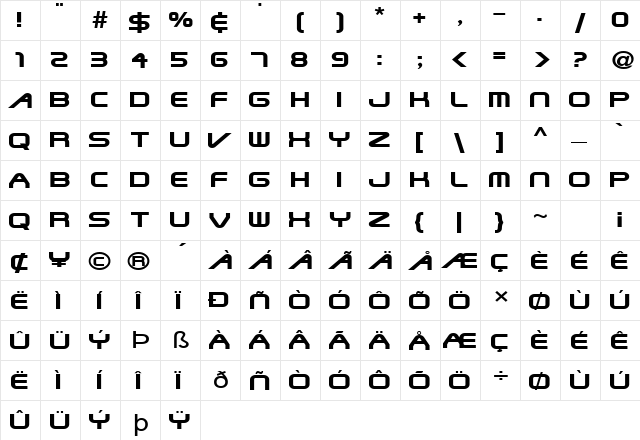
ShuttleExtended Normal
Design Context for ShuttleExtended Typeface
ShuttleExtended takes a measured approach to typography — its balanced proportions and neutral character make it a reliable workhorse for both digital and print work.